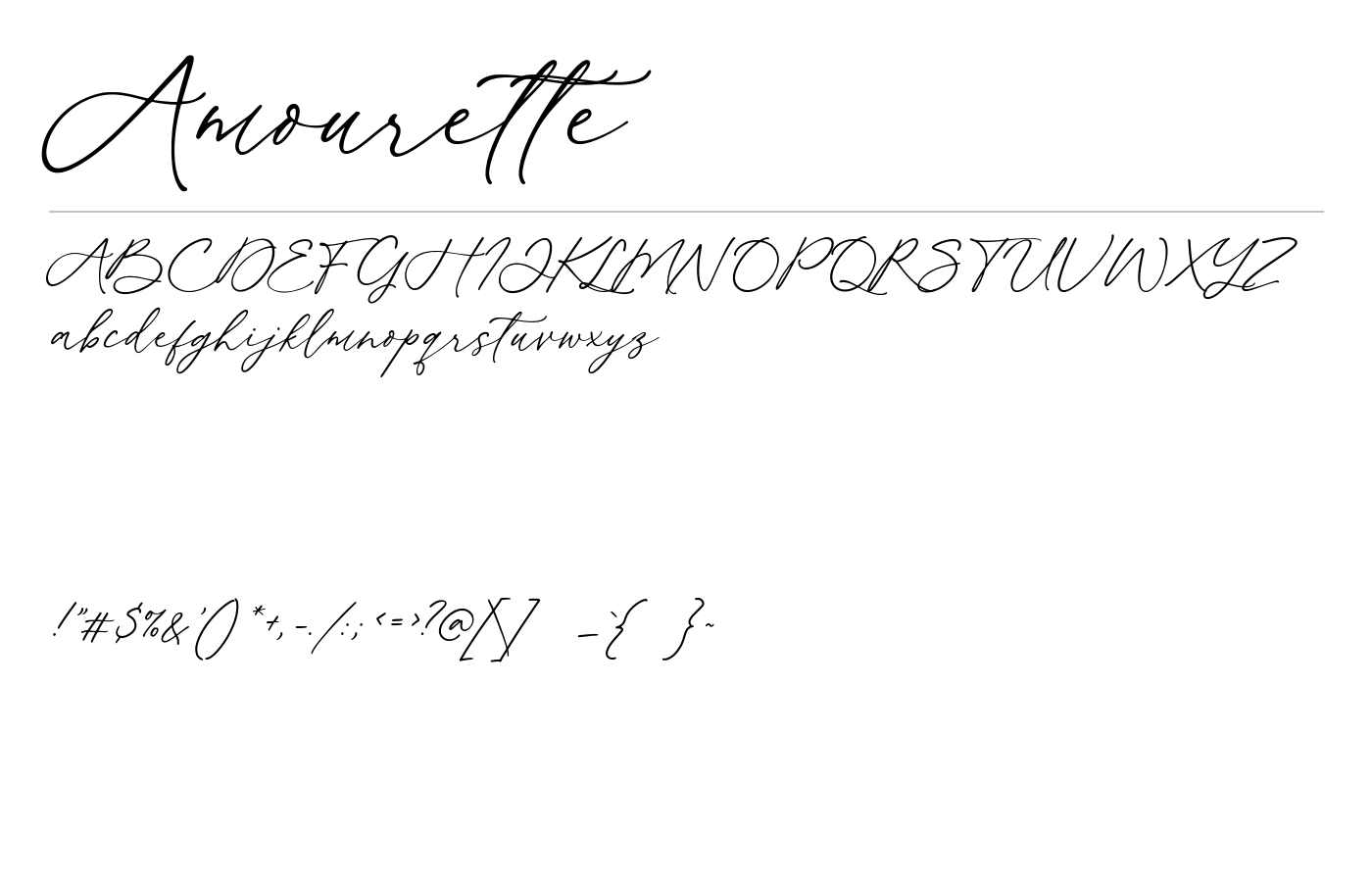
Amourette is an elegant, delicate script font characterized by its flowing, slender strokes and graceful letterforms that mimic natural handwriting. Its light weight and airy spacing make it perfect for sophisticated branding, wedding invitations, and fashion-related designs where a touch of romance and refinement is desired. This font’s charming, handwritten style lends warmth and personality to any creative project.
Amourette Font
About Amourette Font